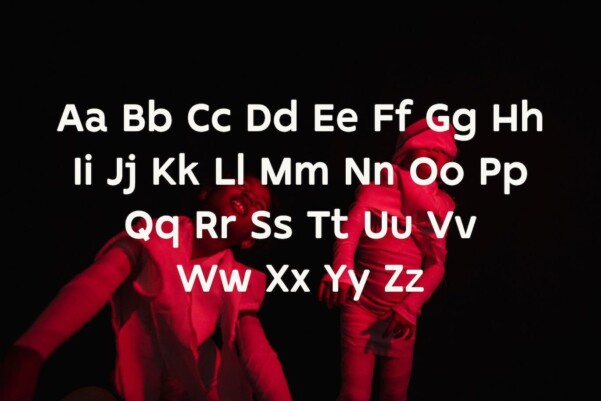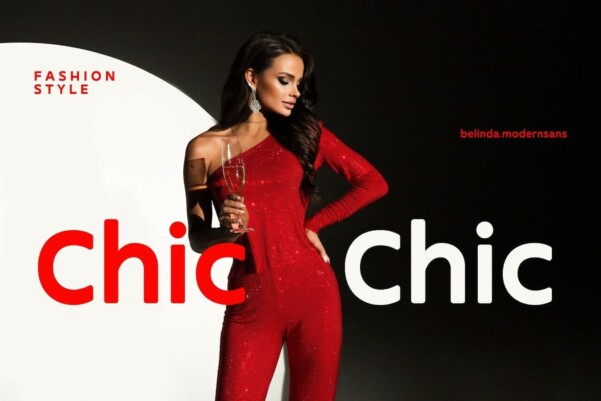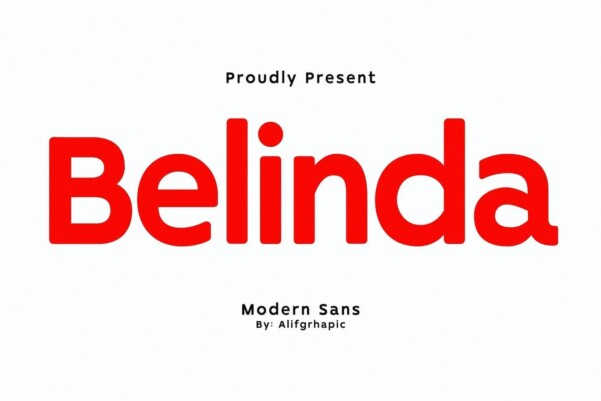
Belinda-Modern Sans Font
Belinda-Modern Sans Font – A beautiful series of letters is encapsulated in this ‘Belinda’ font. Neat lettering is perfect for writing needs that are modern and pleasing to the eye, there is a Modern impression but still looks Elegant when used for writing. Tidiness in the manufacture of each letter, is our top priority. You can have fun and be creative using this font product we made, because the results will definitely be very satisfying.